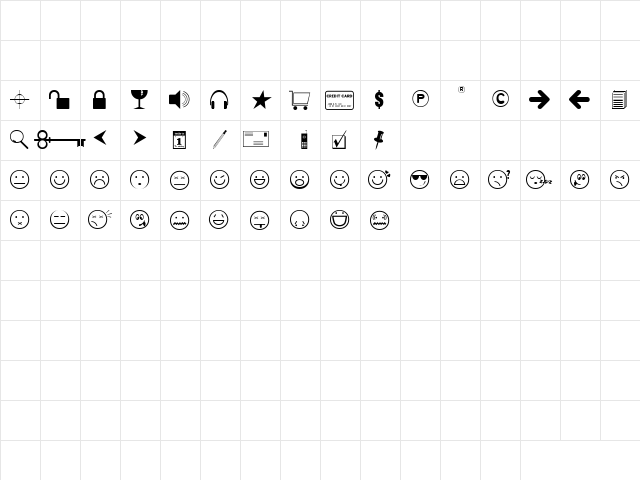
Symbologica JL Regular
Design Context for Symbologica JL Typeface
Symbologica JL takes a measured approach to typography — its balanced proportions and neutral character make it a reliable workhorse for both digital and print work.